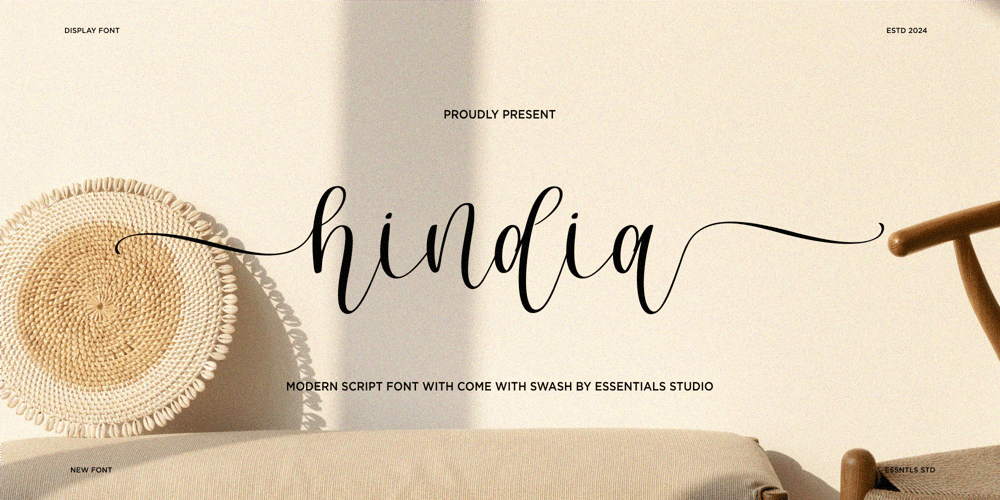
Hindia Swash Font Family was designed by Bagus Panji Asmoro and published by Essentials Studio. Hindia Swash contains 1 styles and family package options. Hindia is an exquisite handwritten font, masterfully designed to become a true favorite. It maintains its classy calligraphic influences while feeling contemporary and fresh. Fall in love with it and bring your projects to the highest levels! This font is PUA encoded which means you can access all the glyphs and ligatures with ease!